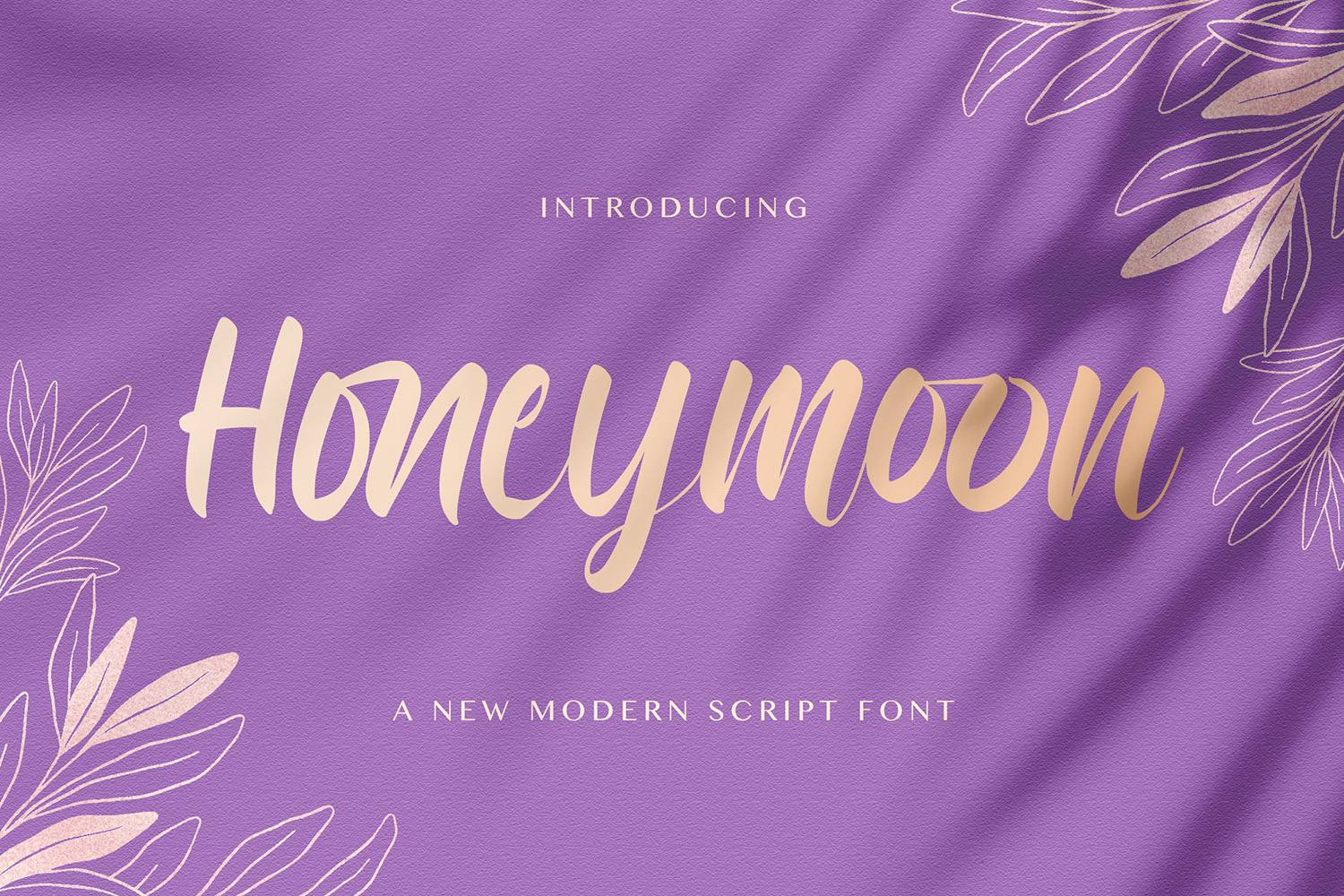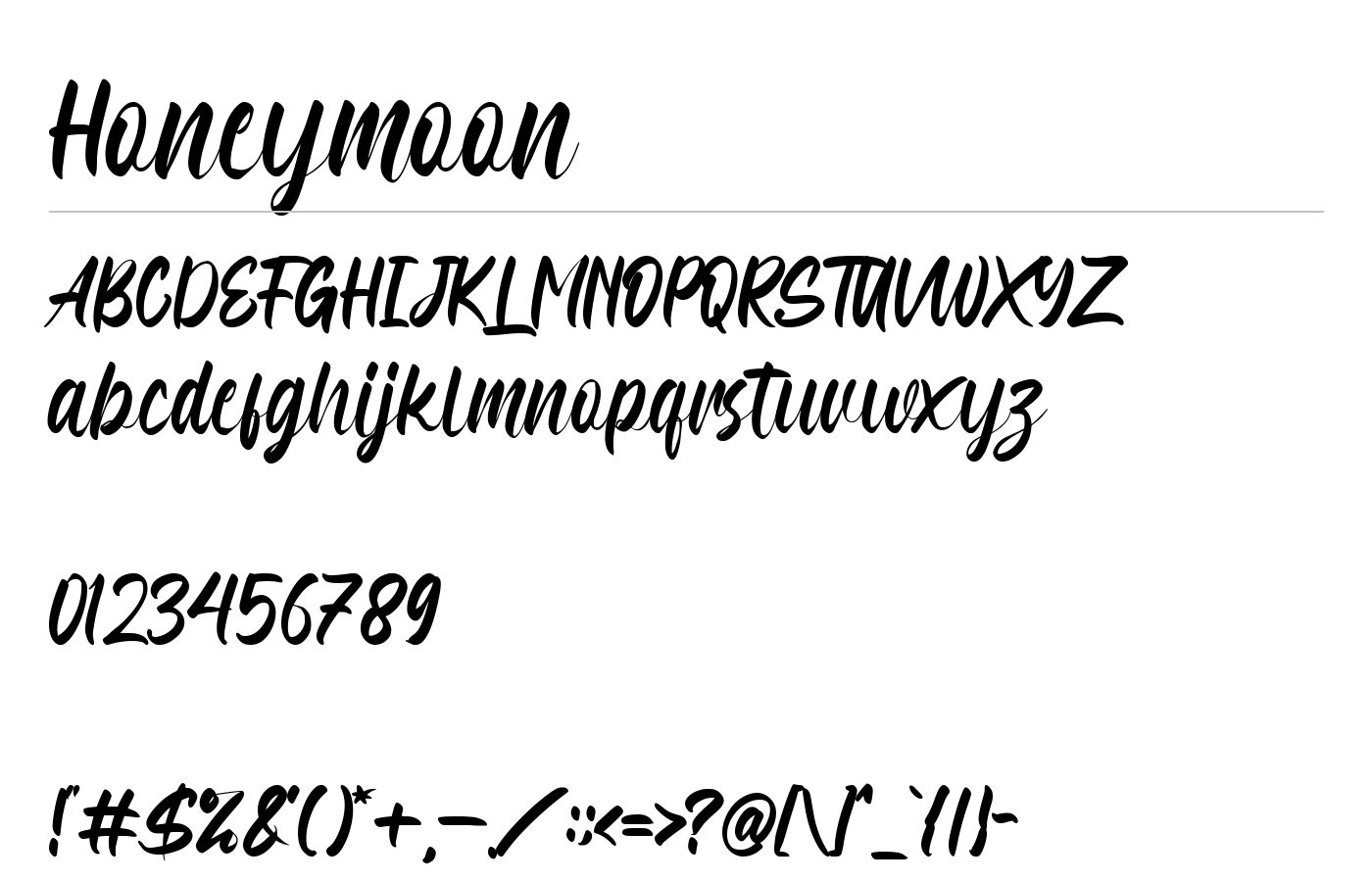
Honeymoon Font is a lively and elegant script typeface with a casual, handwritten feel. It features smooth, flowing strokes with moderate contrast and a slightly condensed width, making it perfect for adding a personal, stylish touch to invitations, branding, and headlines. This font’s energetic yet refined style suits creative projects that want to convey warmth and charm without sacrificing readability.
Honeymoon Font
About Honeymoon Font